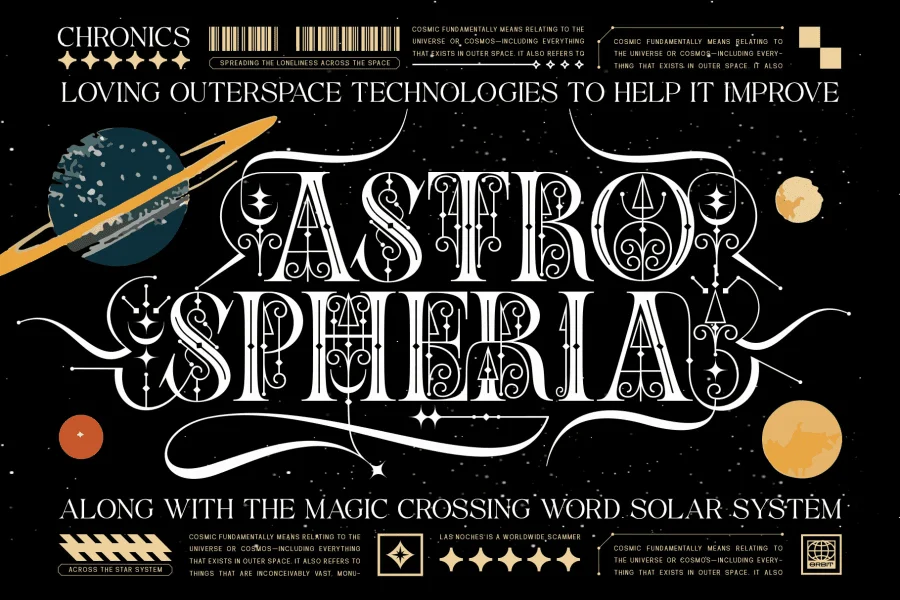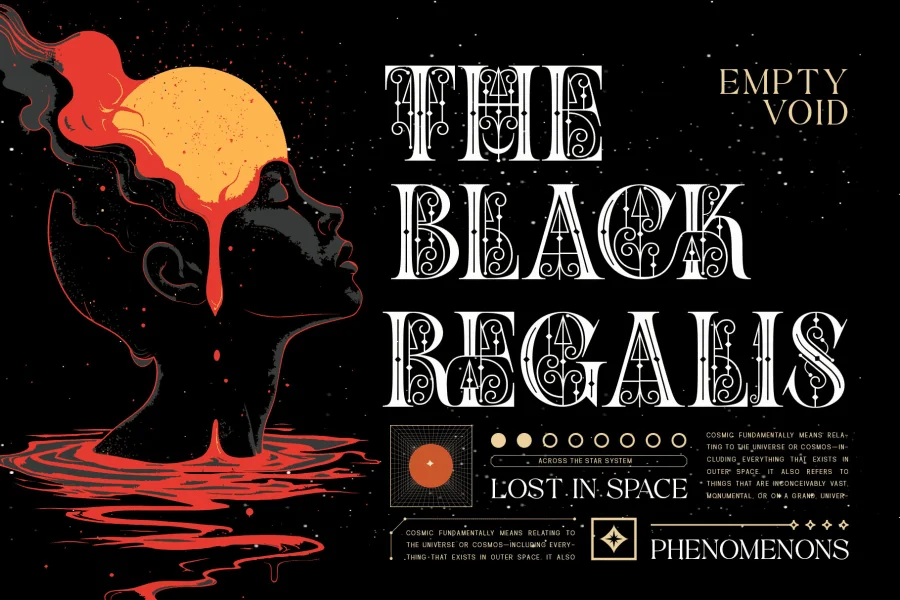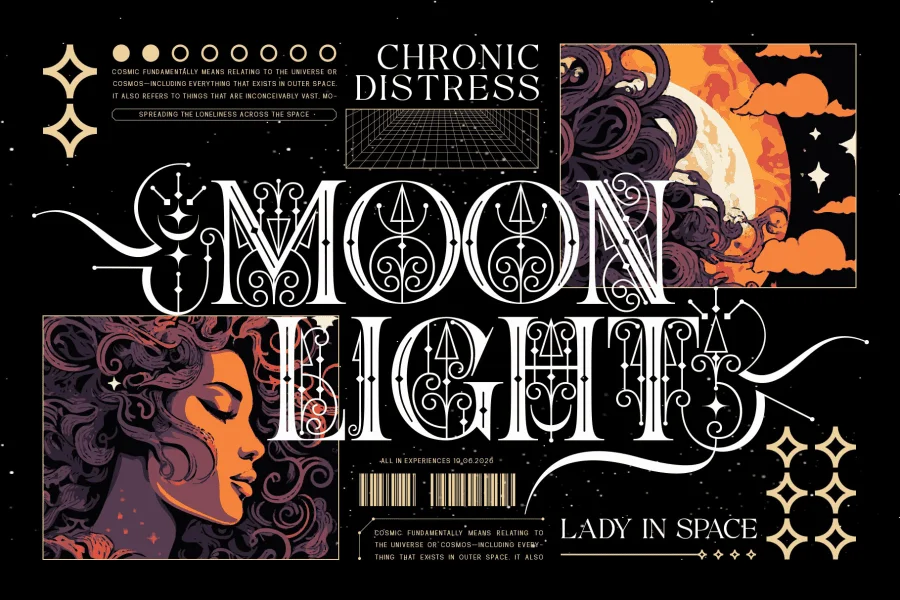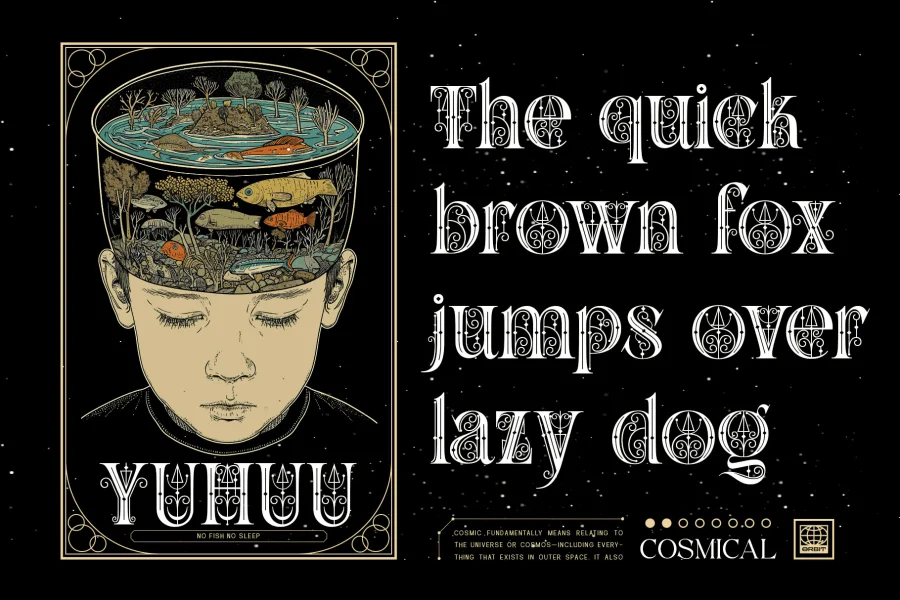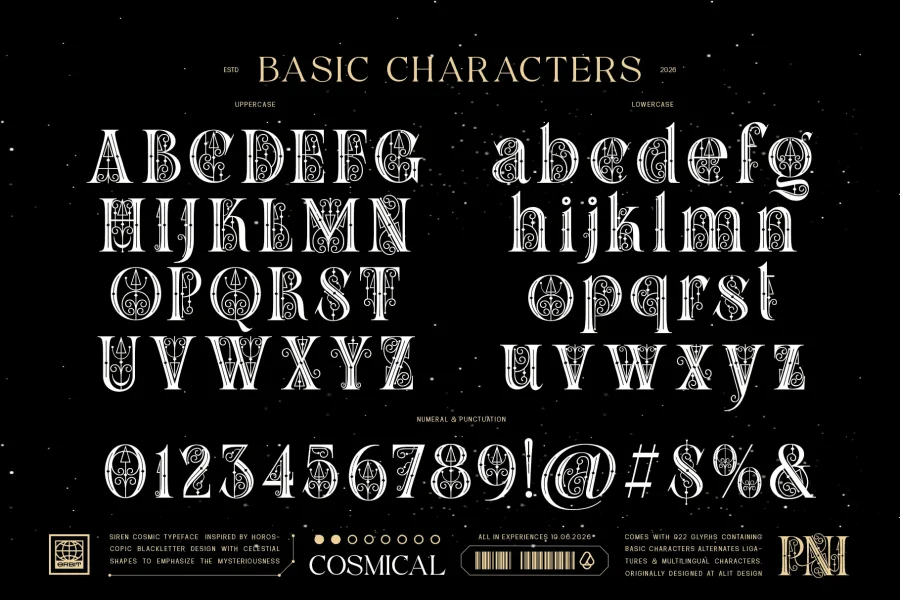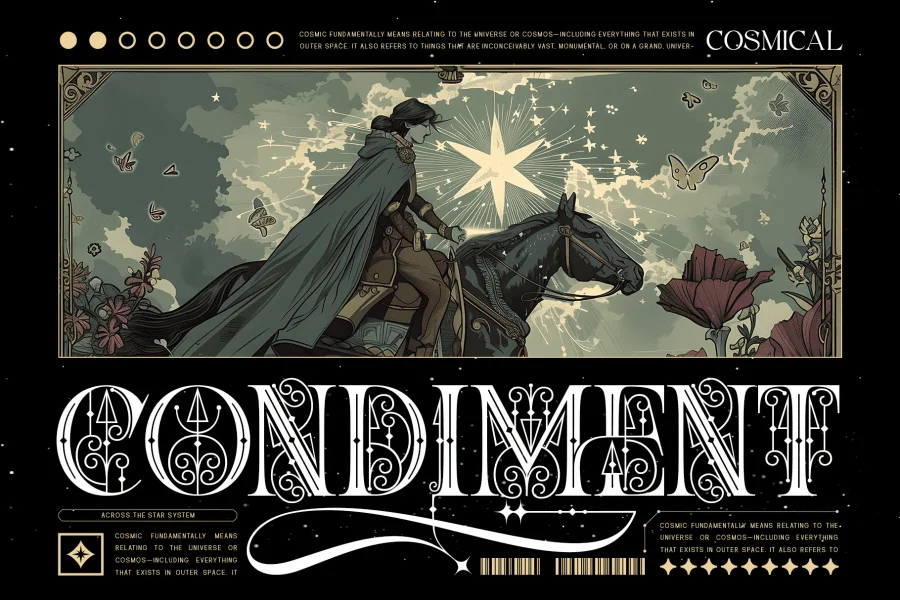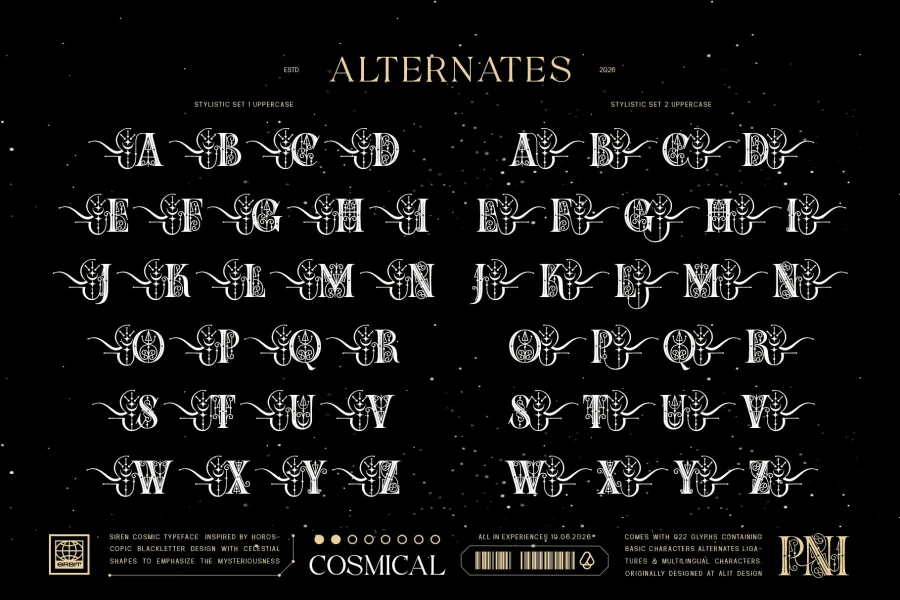
A Celestial Blackletter Typeface
Step into a universe of mystical elegance with the Siren Cosmic Typeface. Inspired by horoscopic blackletter design and intricately adorned with celestial shapes, this typeface is carefully crafted to evoke a sense of cosmic wonder and mysteriousness. Whether you are designing tarot decks, astrology-inspired merchandise, enchanting book covers, or striking neo-noir posters, Siren Cosmic delivers a breathtakingly magical aesthetic that commands attention.
Built for professional designers who demand versatility, Siren Cosmic comes packed with an incredible 922 glyphs. It offers endless possibilities for typographic exploration through its extensive collection of Alternates ranging from SS01 to SS09. Combined with a stunning selection of custom Ligatures, you can effortlessly mix and match characters to create bespoke, flowing lettering that perfectly fits your creative vision.